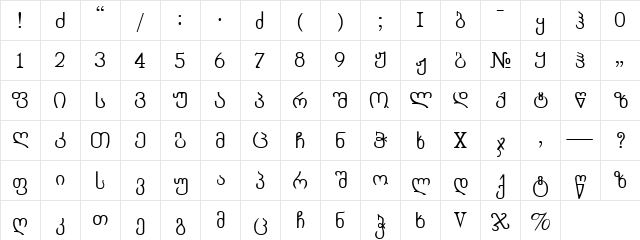
Chveulebrivy-ITV Regular
Design Context for Chveulebrivy-ITV Typeface
Chveulebrivy-ITV takes a measured approach to typography — its balanced proportions and neutral character make it a reliable workhorse for both digital and print work.